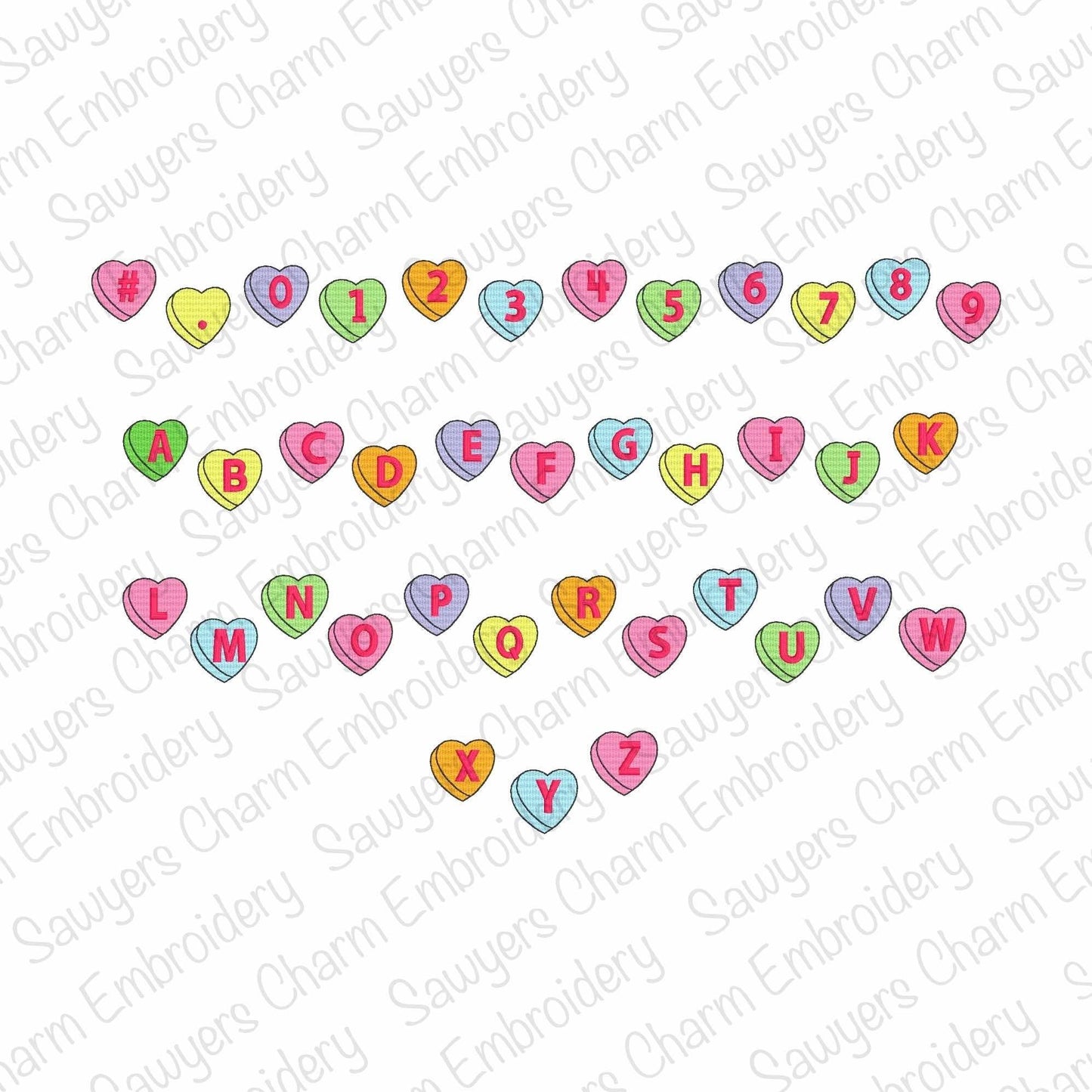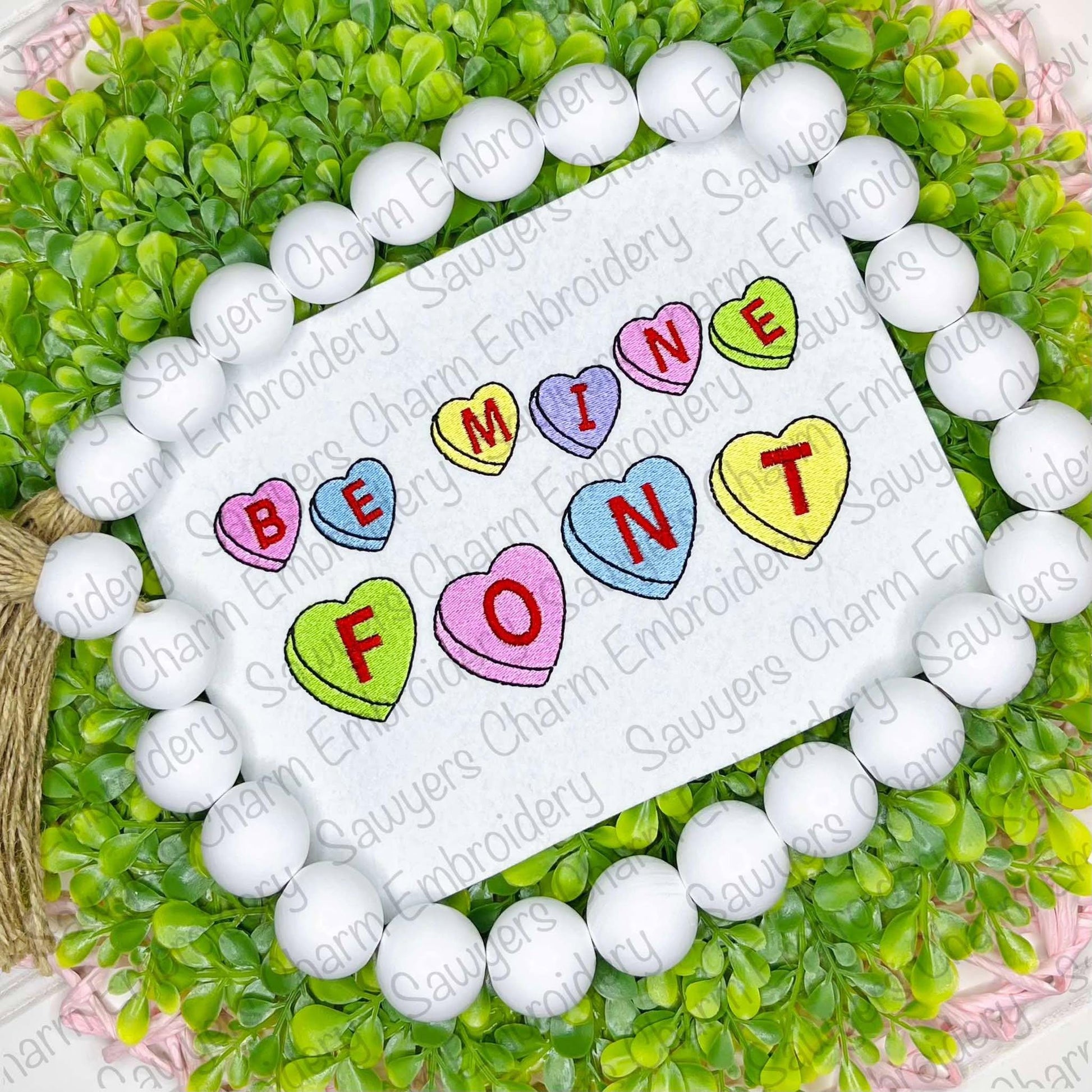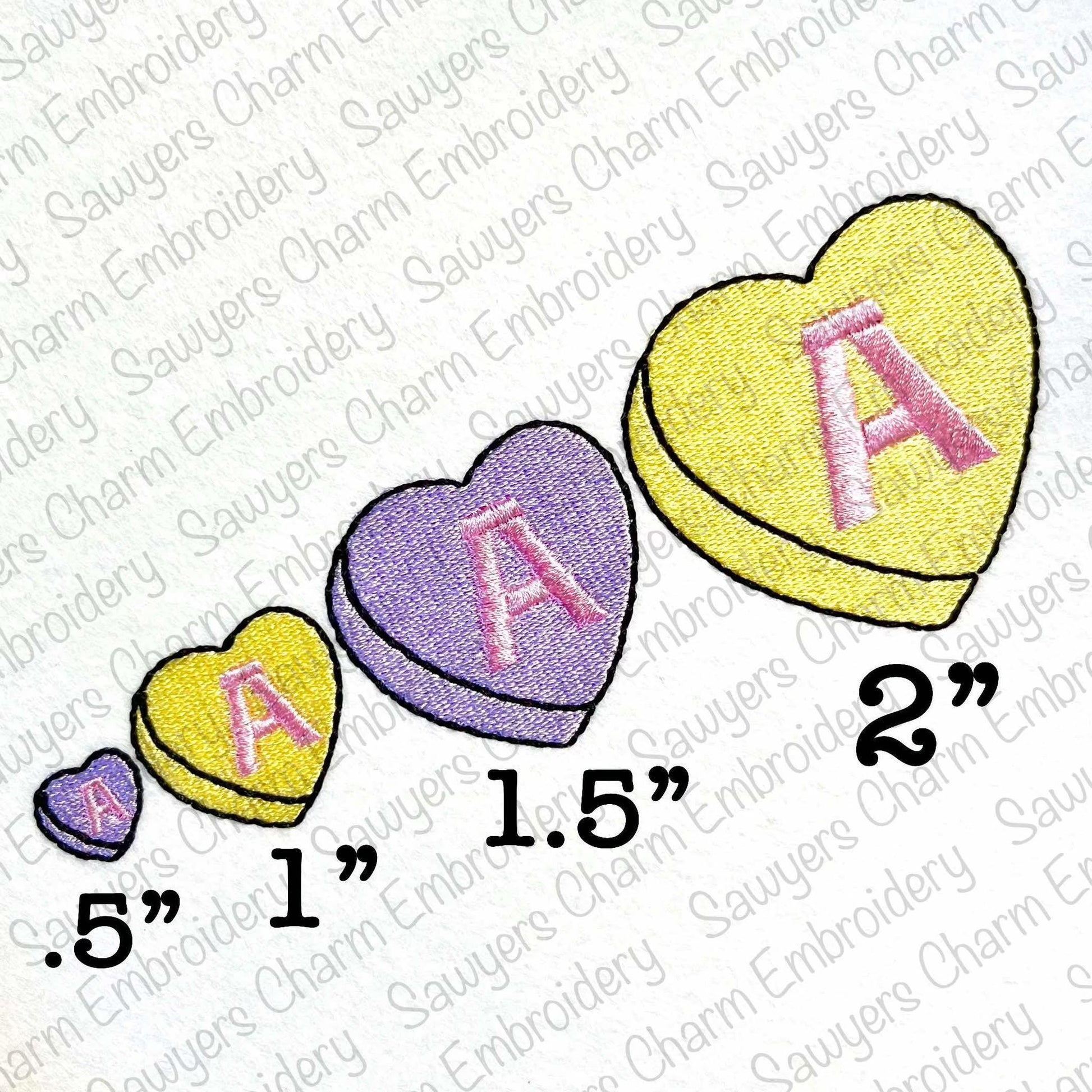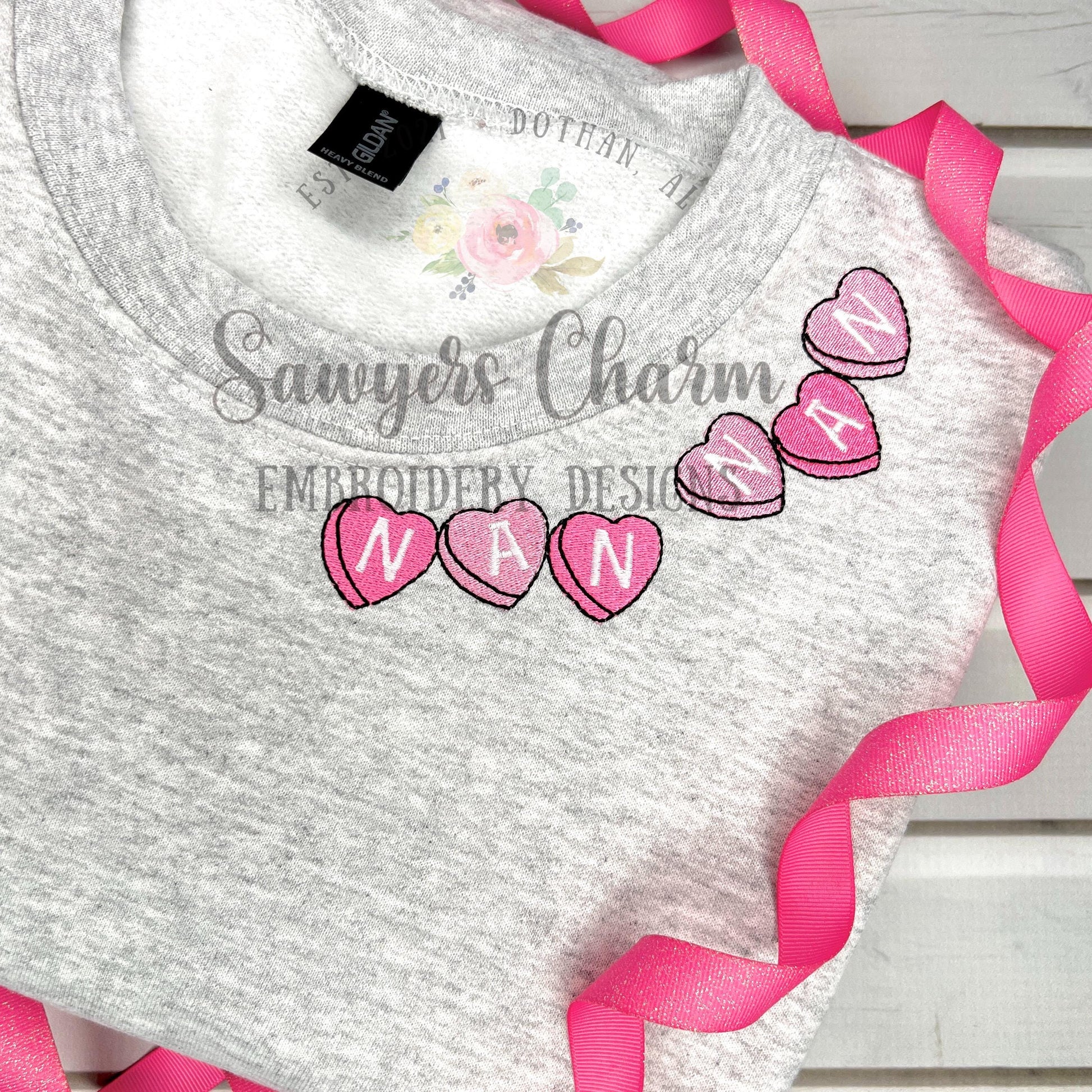
Be Mine conversation hearts machine embroidery font, fill stitch heart, satin stitch block uppercase letters, BX format included, 1/2"-2"
This embroidery font comes in 4 sizes.....1/2", 1", 1.5", and 2". The hearts are fill stitch with bean stitch finishing details. The letters are a block satin stitch font with capital letters only. There is also a "#" and "." included, along with numbers 0-9.